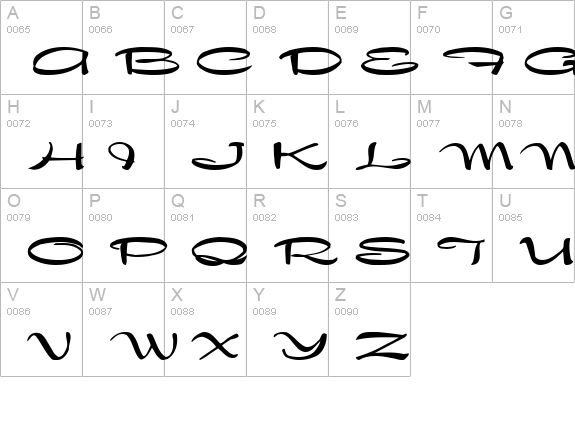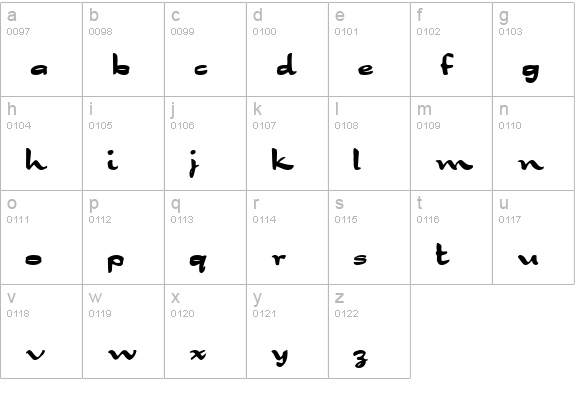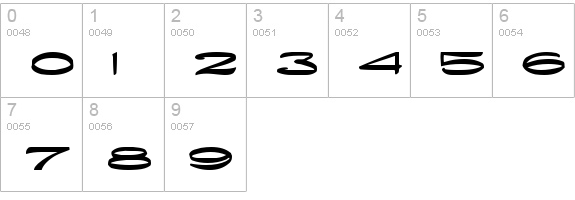
Dragonwyck Bold is a strong, high-contrast variant in the Dragonwyck typeface family \xE2\x80\x94 well suited to headlines, attention-grabbing titles, and strong calls-to-action.
Dragonwyck Bold is a striking and powerful display font that exudes a sense of elegance and sophistication. Its strong, bold lines make a statement while maintaining a sense of gracefulness. This font is perfect for creating eye-catching headlines, logos, and branding materials that demand attention. With its timeless appeal and classic design, Dragonwyck Bold is sure to elevate any design project to new heights. Best of all, Dragonwyck Bold is available for free download at FontsMarket.com. This means that you can easily access this stunning font and incorporate it into your creative projects without any cost. Don't miss out on the opportunity to enhance your designs with the beauty and impact of Dragonwyck Bold - download it today and unleash your creativity!